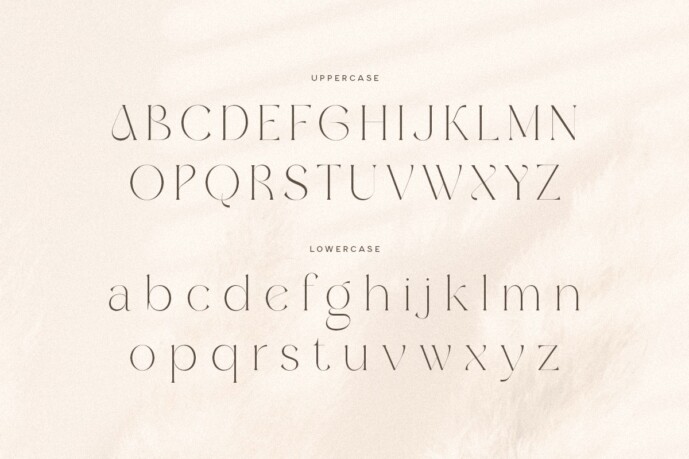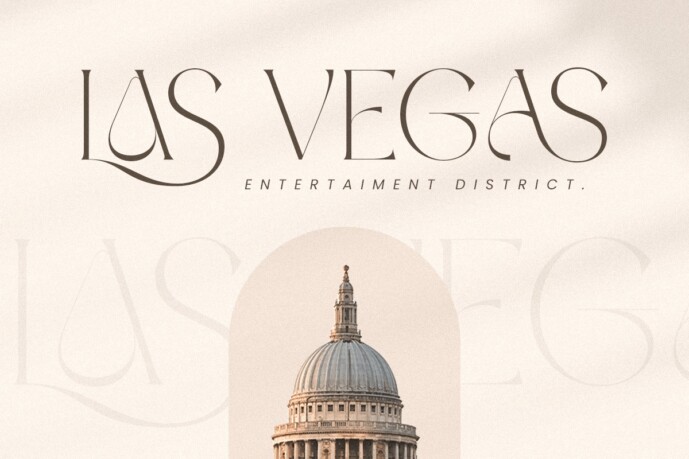
Glossy Serif Font
Glossy Serif Font is a font designed for those who seek modern elegance in their designs. With its sleek and luxurious style, Glossy brings a refined touch to any project, making it the perfect choice for high-end branding, fashion, and editorial designs. Its balanced and graceful curves create a timeless aesthetic that stands out in any setting.
Inspired by luxury and sophistication, Glossy elevates your designs to a new level of professionalism. Whether you’re working on logos, invitations, or packaging, this font ensures your work exudes class and exclusivity. Its versatility makes it an ideal choice for projects that demand a high-end look.
Glossy is more than just a pretty font: it’s functional and versatile. With unique alternate characters and extensive multilingual support, it’s designed to meet the diverse needs of designers around the world. Elevate your designs with the modern elegance of Glossy